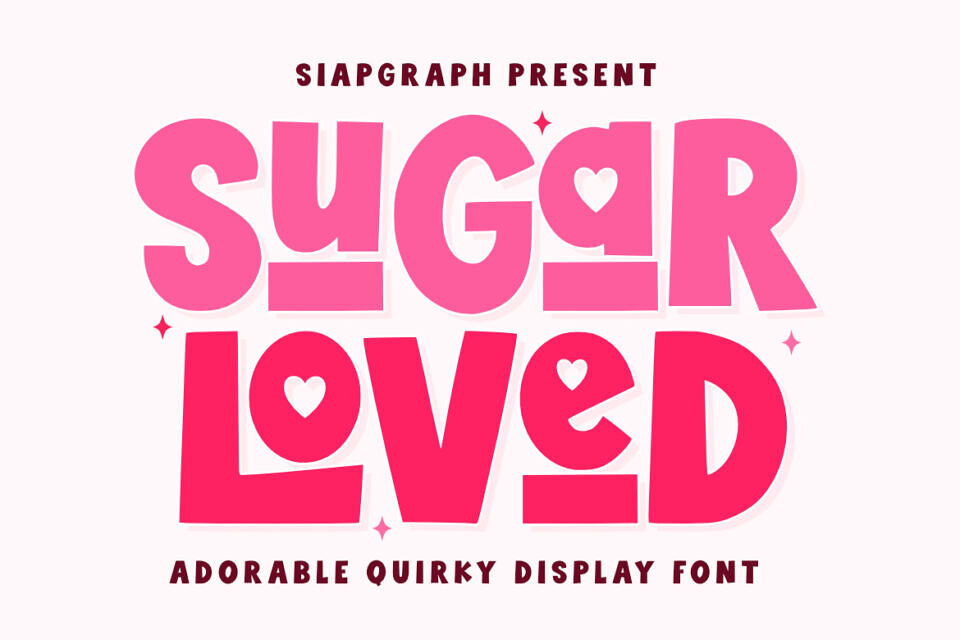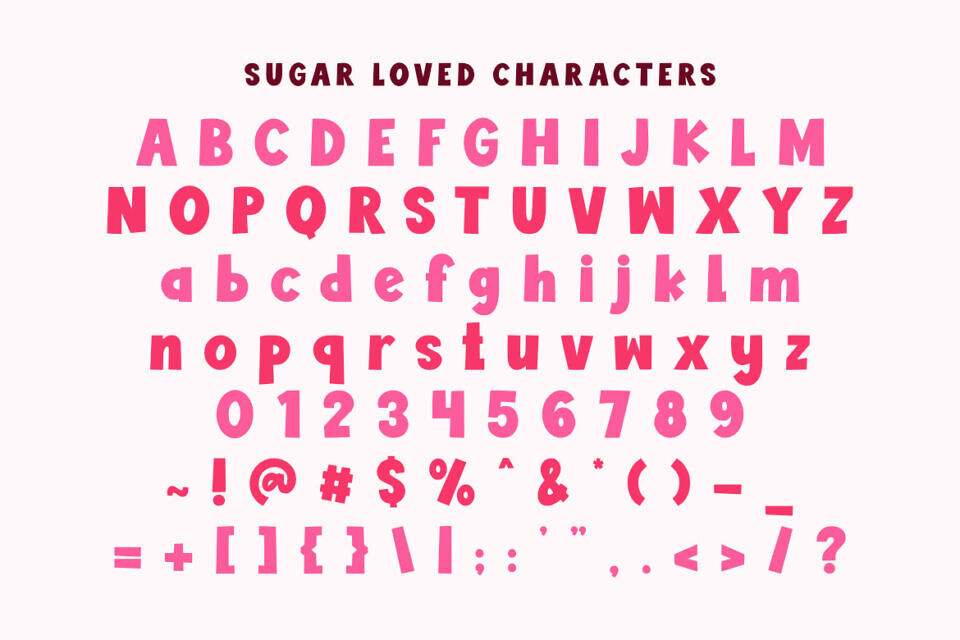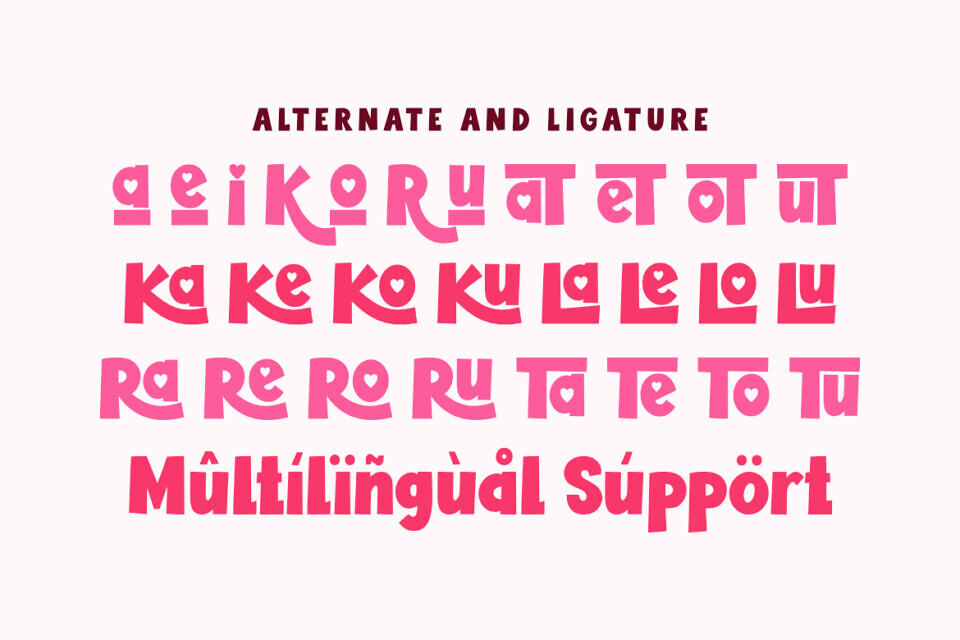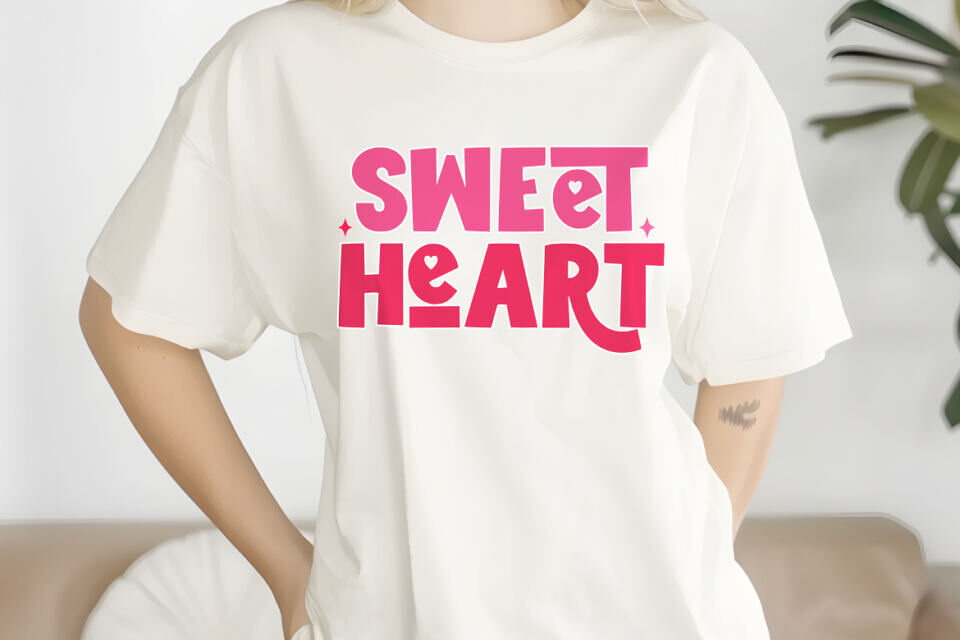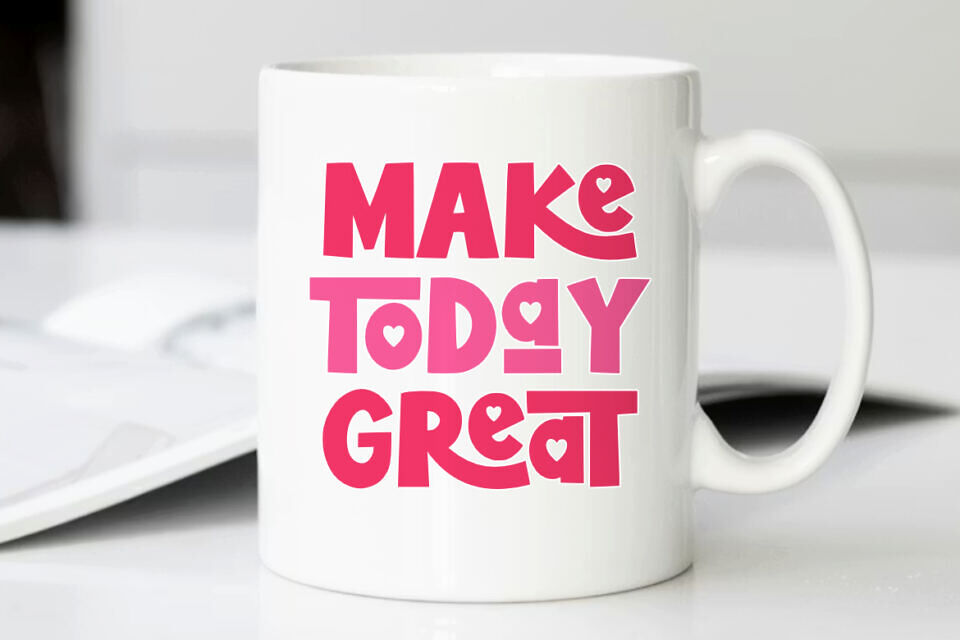
Sugar Loved Font
Sugar loved is an adorable quirky display font inspired by the sweetness of colorful candies and the playful spirit of hand-drawn romantic doodles. This typeface features bold, chunky strokes with delightful heart accents cleverly integrated into the characters, creating a whimsical and loving atmosphere.
The smooth and thick outlines are specifically optimized for the crafting community, ensuring a seamless experience for vinyl cutting, sublimation, and high-quality printing.